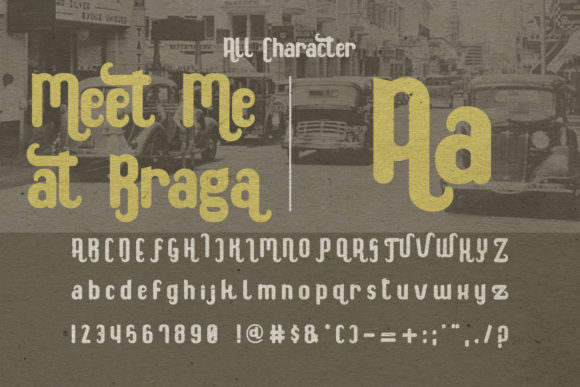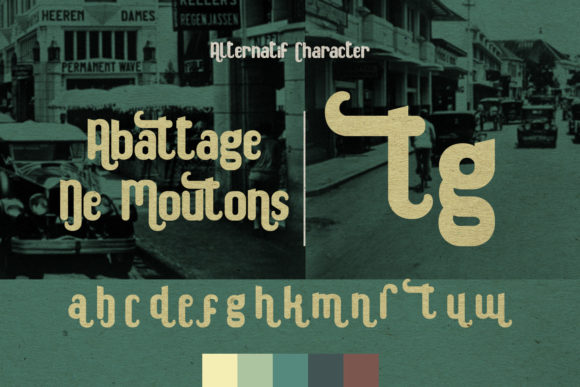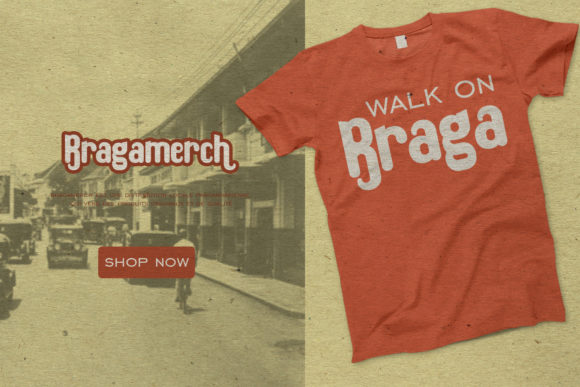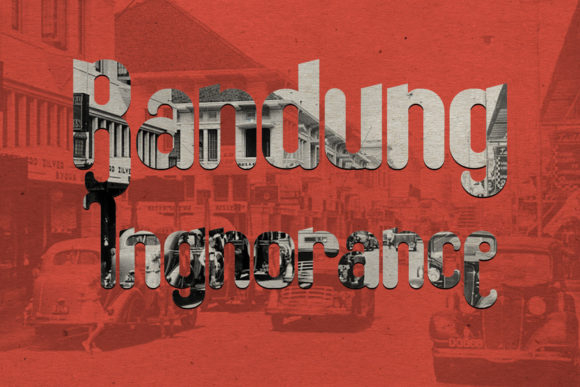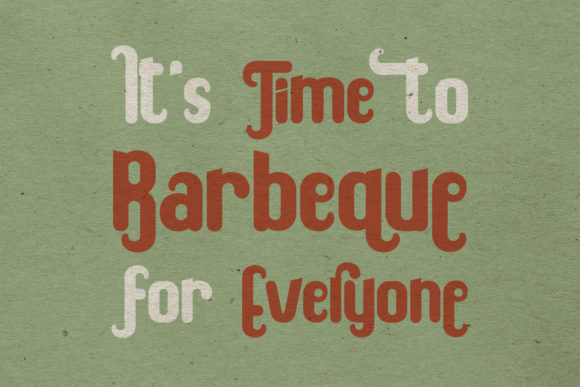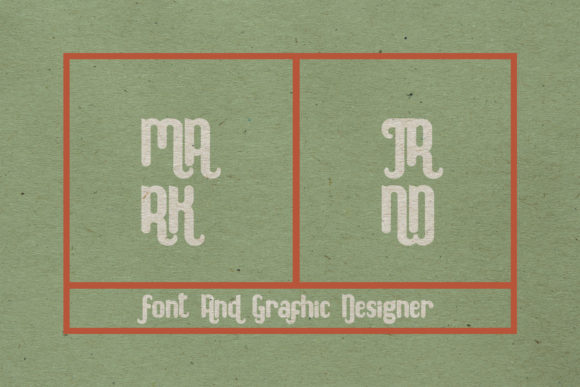
The Designer’s Delight: Uncovering the Charm of Bragaway Font
I’ll never forget the time I was working on a project for a craft beer brewery, and I just couldn’t find the perfect font to capture their fun, yet vintage vibe. The client was specific about wanting something that would stand out on their packaging and merchandise, but still convey a sense of nostalgia. That’s when I stumbled upon Bragaway Font, and let me tell you, it was love at first sight! 💕
What I Love About Bragaway Font ✨
• ✅ Its modern display font design is perfect for making a statement
• ✅ The simple alternate character with a vintage design adds a touch of uniqueness
• ✅ It’s incredibly versatile and can be used for a wide range of projects, from beer packaging to magazine layouts
• ✅ The font’s clean lines and classic feel make it easy to read and recognize
• ⚠️ While Bragaway Font is amazing for display purposes, it may not be the best choice for body text due to its bold and stylized design
• ⚠️ Some users might find the vintage alternate characters a bit tricky to use, especially if they’re new to OpenType features
Bragaway Font was designed with the intention of capturing the essence of vintage design while still feeling modern and fresh. The designer aimed to create a font that would be perfect for creative projects that require a touch of nostalgia and personality. Although the real story behind Bragaway Font’s creation might be unknown, its design clearly resonates with the needs of modern designers and crafters.
What type of projects is Bragaway Font best suited for? Bragaway Font is perfect for display purposes, such as beer packaging, barbershop branding, magazine layouts, t-shirts, and more!
Is Bragaway Font easy to read? While Bragaway Font is designed for display purposes, its clean lines and classic feel make it relatively easy to read, especially in larger sizes.